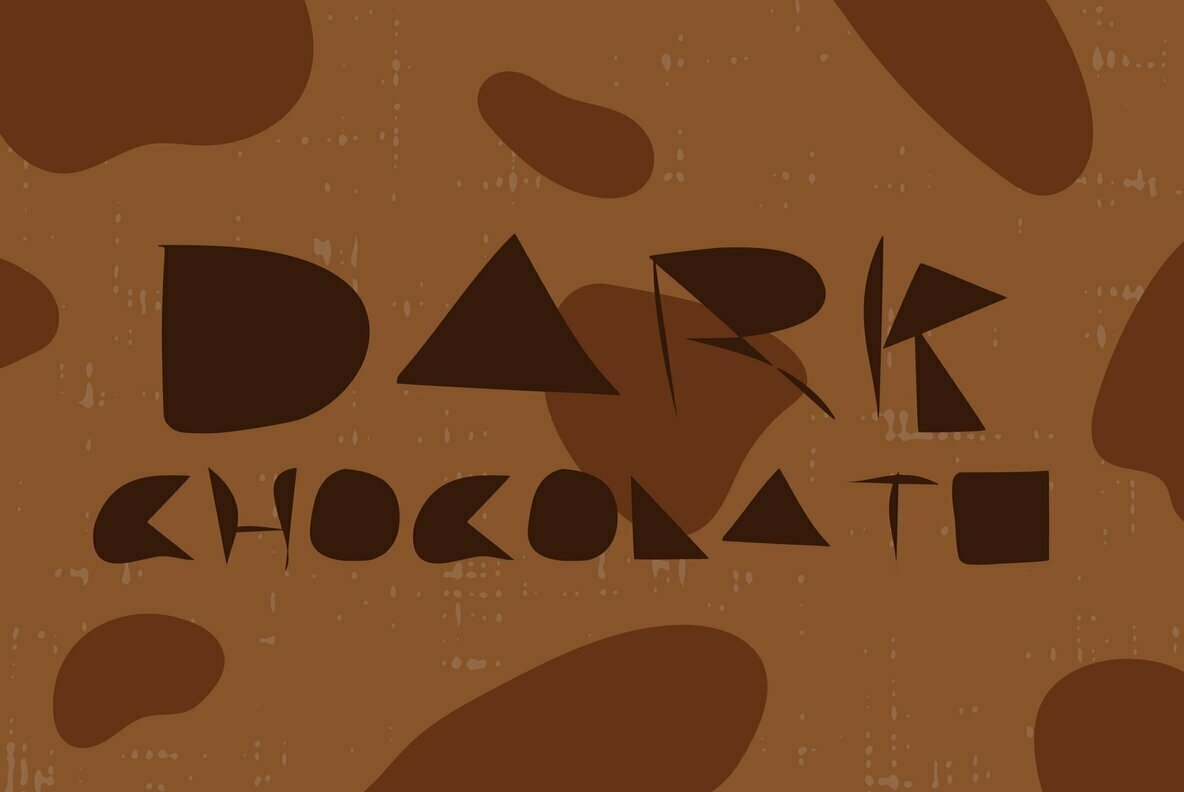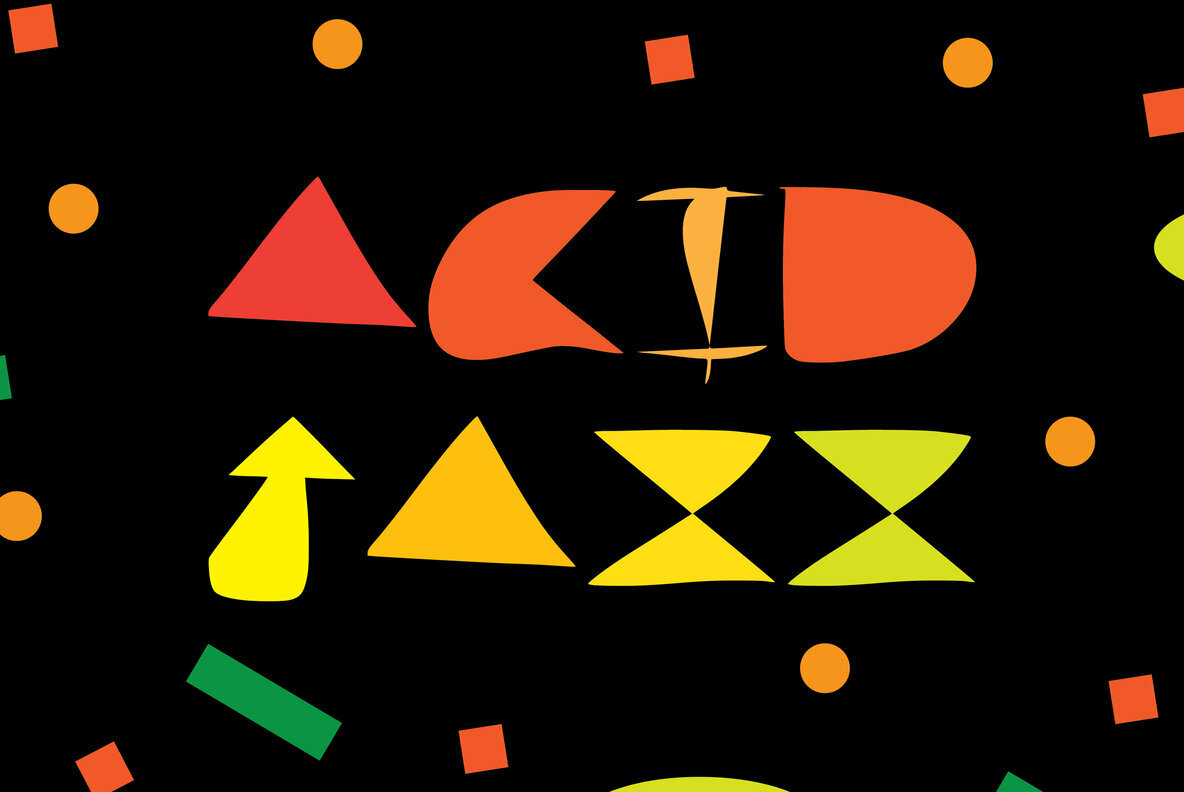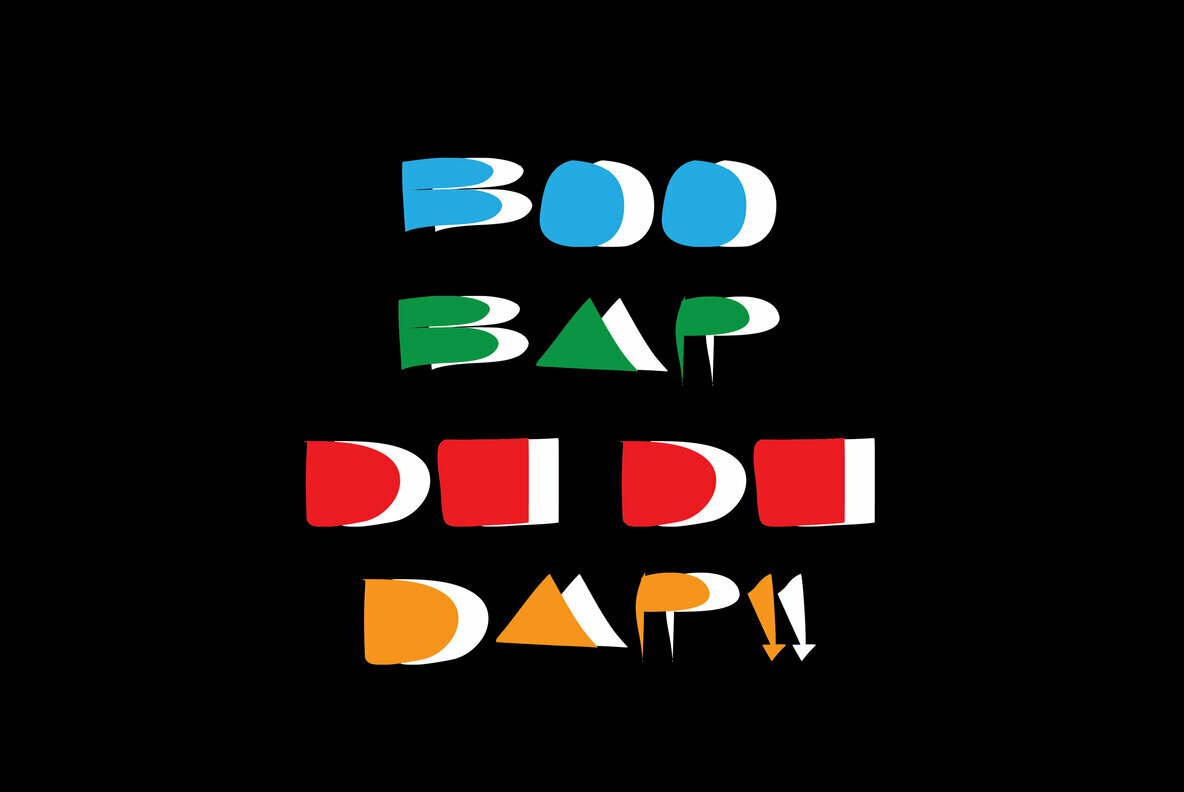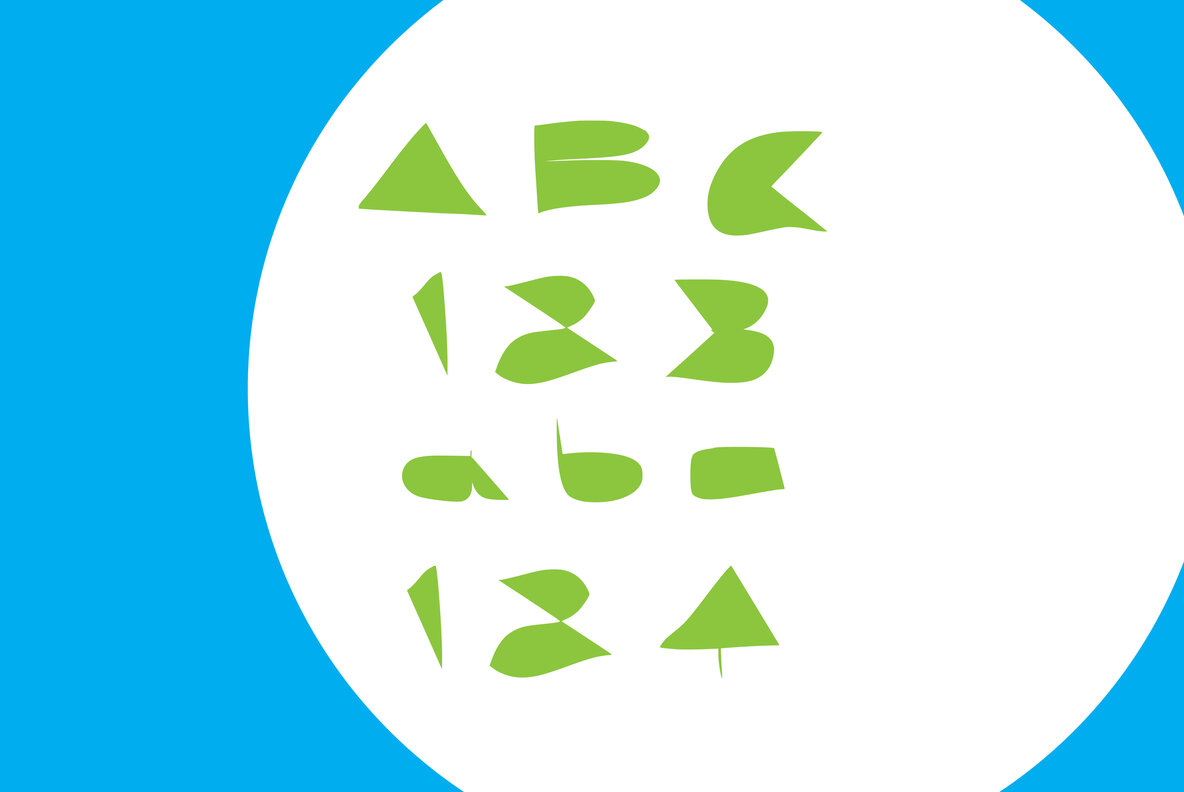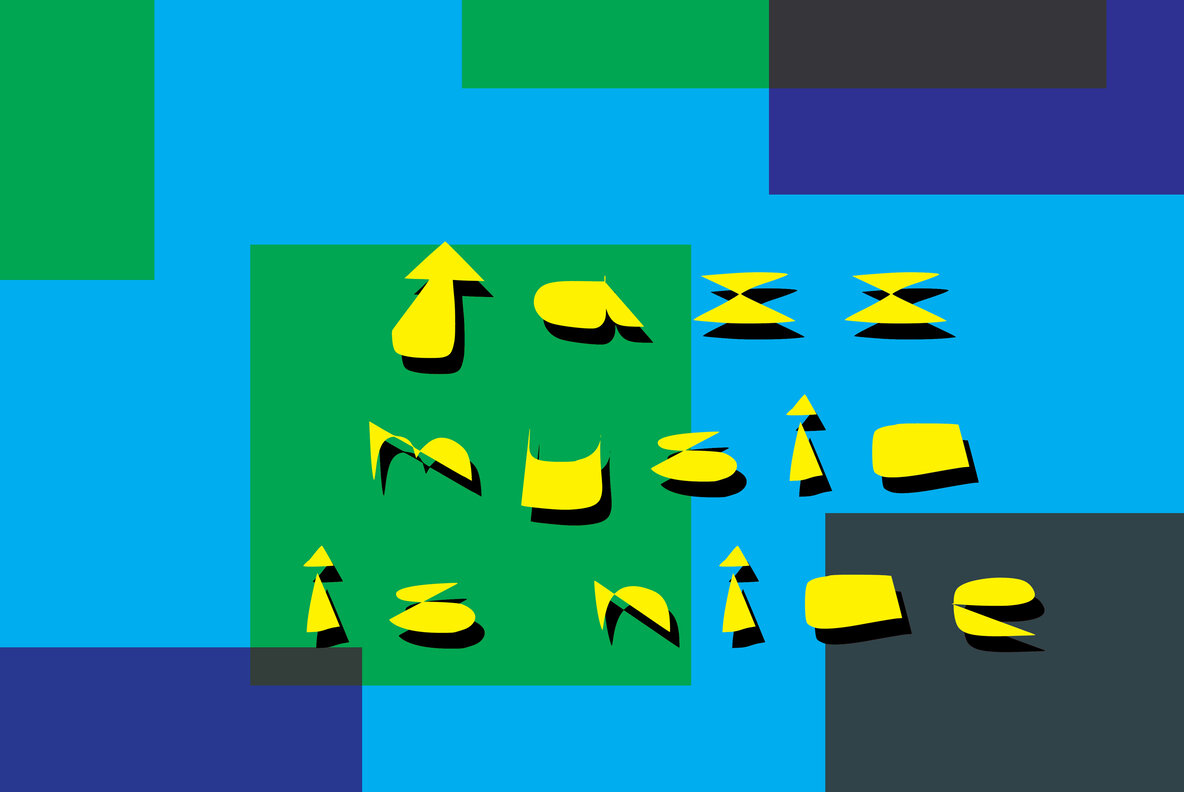
Crazy, kooky avant garde, Jazz inspired styled font. Straight out of the freezer man! Cool shapes, odd lines makes this font look like its moving to cool jazz.